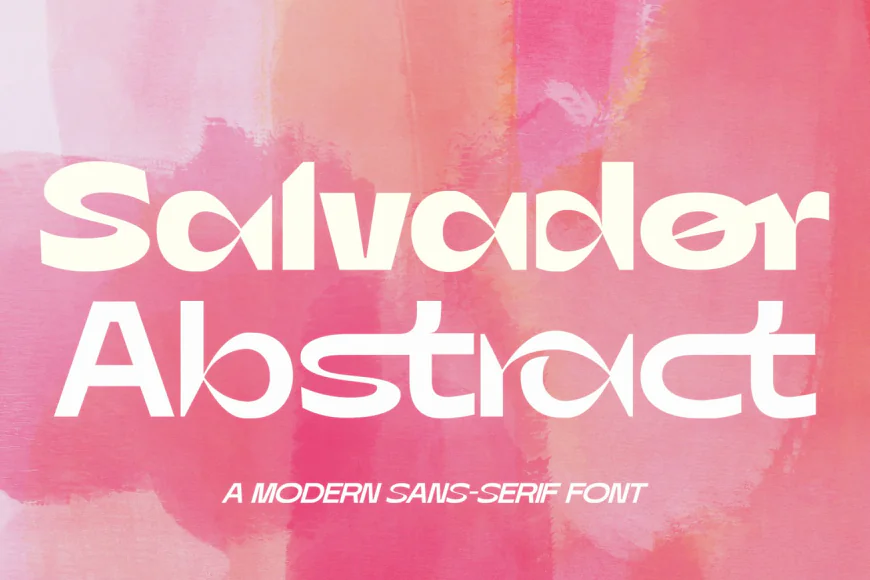
Salvador Abstract Font is a bold sans serif display typeface with distinctive exaggerated ink traps. Its high-contrast design creates a striking appearance, combining thick strokes with delicate crossbars and details that stand out at larger sizes.